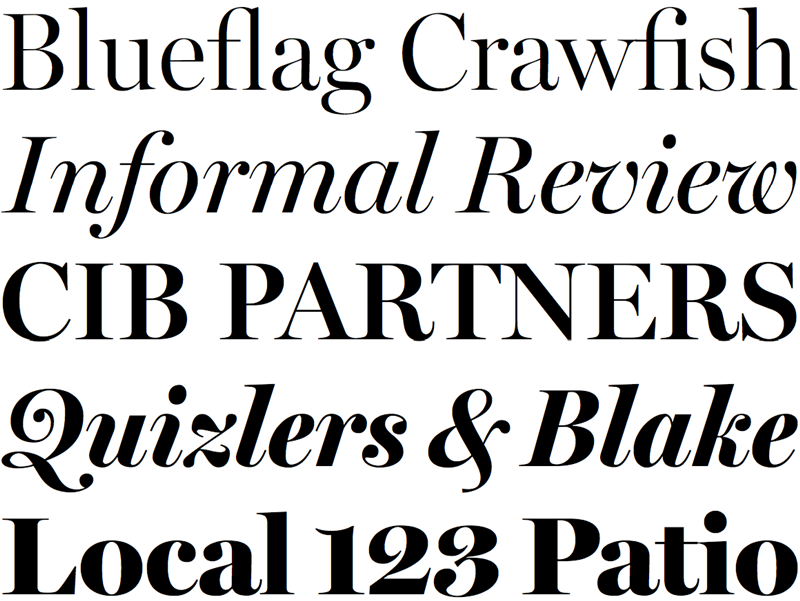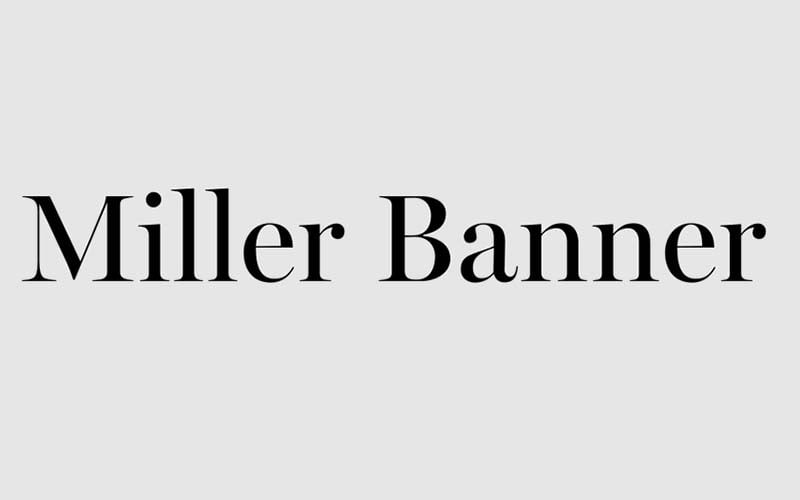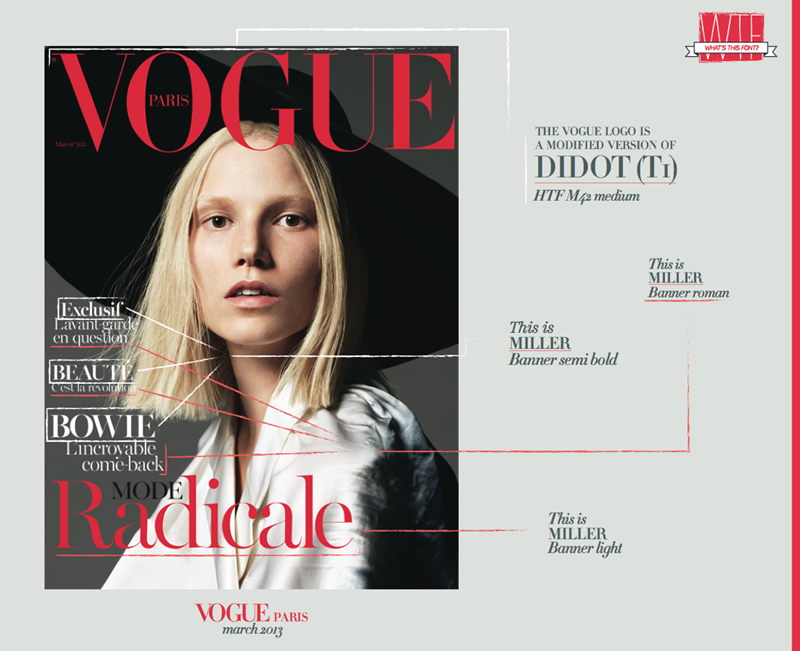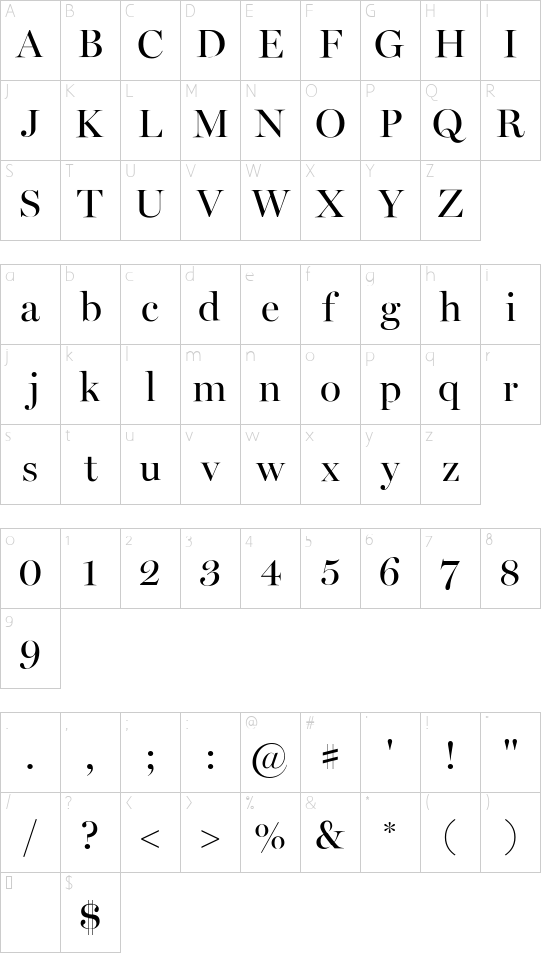
Miller Banner Font
Miller Banner Font - 100pt and up, beyond any examples. Web miller banner is a chic and elegant serif font family that was designed by matthew carter and published by carter. Miller banner takes matthew carter’s popular miller series to new heights: Web complete family of 10 fonts: Miller banner font family was designed by matthew carter and published by carter &.
Web complete family of 10 fonts: Web miller banner is a chic and elegant serif font family that was designed by matthew carter and published by carter. Miller banner font family was designed by matthew carter and published by carter &. 100pt and up, beyond any examples. Miller banner takes matthew carter’s popular miller series to new heights:
Web complete family of 10 fonts: Miller banner takes matthew carter’s popular miller series to new heights: 100pt and up, beyond any examples. Web miller banner is a chic and elegant serif font family that was designed by matthew carter and published by carter. Miller banner font family was designed by matthew carter and published by carter &.
Miller banner font family was designed by matthew carter and published by carter &. 100pt and up, beyond any examples. Web miller banner is a chic and elegant serif font family that was designed by matthew carter and published by carter. Web complete family of 10 fonts: Miller banner takes matthew carter’s popular miller series to new heights:
Miller banner takes matthew carter’s popular miller series to new heights: 100pt and up, beyond any examples. Web complete family of 10 fonts: Web miller banner is a chic and elegant serif font family that was designed by matthew carter and published by carter. Miller banner font family was designed by matthew carter and published by carter &.
Miller banner takes matthew carter’s popular miller series to new heights: Web complete family of 10 fonts: 100pt and up, beyond any examples. Miller banner font family was designed by matthew carter and published by carter &. Web miller banner is a chic and elegant serif font family that was designed by matthew carter and published by carter.
Miller banner takes matthew carter’s popular miller series to new heights: Web miller banner is a chic and elegant serif font family that was designed by matthew carter and published by carter. Web complete family of 10 fonts: Miller banner font family was designed by matthew carter and published by carter &. 100pt and up, beyond any examples.
Miller banner font family was designed by matthew carter and published by carter &. 100pt and up, beyond any examples. Web complete family of 10 fonts: Web miller banner is a chic and elegant serif font family that was designed by matthew carter and published by carter. Miller banner takes matthew carter’s popular miller series to new heights:
Miller banner font family was designed by matthew carter and published by carter &. Web complete family of 10 fonts: Miller banner takes matthew carter’s popular miller series to new heights: 100pt and up, beyond any examples. Web miller banner is a chic and elegant serif font family that was designed by matthew carter and published by carter.
Miller banner takes matthew carter’s popular miller series to new heights: 100pt and up, beyond any examples. Miller banner font family was designed by matthew carter and published by carter &. Web miller banner is a chic and elegant serif font family that was designed by matthew carter and published by carter. Web complete family of 10 fonts:
Web miller banner is a chic and elegant serif font family that was designed by matthew carter and published by carter. Web complete family of 10 fonts: Miller banner takes matthew carter’s popular miller series to new heights: 100pt and up, beyond any examples. Miller banner font family was designed by matthew carter and published by carter &.
Miller banner takes matthew carter’s popular miller series to new heights: Miller banner font family was designed by matthew carter and published by carter &. Web complete family of 10 fonts: 100pt and up, beyond any examples. Web miller banner is a chic and elegant serif font family that was designed by matthew carter and published by carter.
Miller banner takes matthew carter’s popular miller series to new heights: Miller banner font family was designed by matthew carter and published by carter &. Web miller banner is a chic and elegant serif font family that was designed by matthew carter and published by carter. 100pt and up, beyond any examples. Web complete family of 10 fonts:
100Pt And Up, Beyond Any Examples.
Web miller banner is a chic and elegant serif font family that was designed by matthew carter and published by carter. Miller banner font family was designed by matthew carter and published by carter &. Web complete family of 10 fonts: Miller banner takes matthew carter’s popular miller series to new heights: